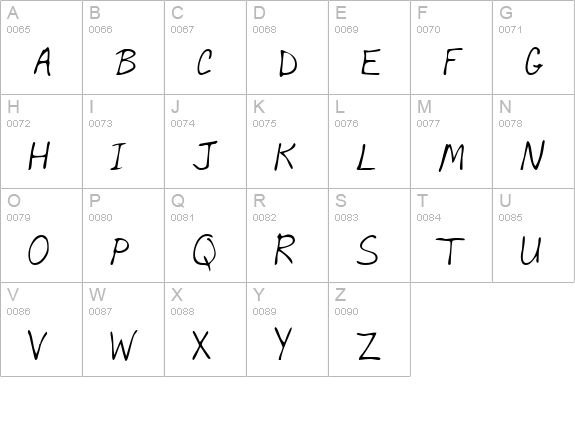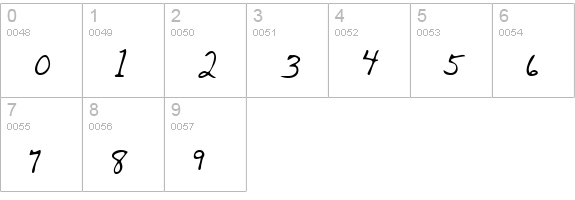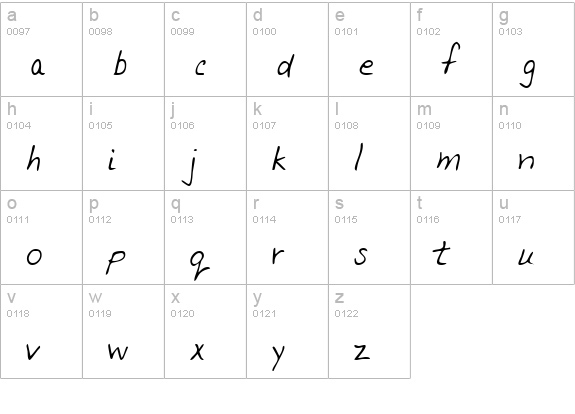
BerylsHand Regular is the standard, neutral variant in the BerylsHand typeface family \xE2\x80\x94 well suited to general body text, paragraphs, and standard typographic work.
BerylsHand Regular font is a charming and versatile handwritten typeface that exudes a sense of warmth and friendliness. Its elegant strokes and natural flow make it perfect for a wide range of design projects, from invitations and greeting cards to branding and packaging. The font's clean and legible appearance ensures that it can be easily read in both print and digital formats. And the best part? BerylsHand Regular font is available for free download at FontsMarket.com! Whether you're a seasoned designer looking to add a new tool to your collection or a beginner seeking a high-quality font without breaking the bank, BerylsHand Regular is the perfect choice. Don't miss out on this fantastic opportunity to enhance your projects with this beautiful and accessible font. Download BerylsHand Regular today and let your creativity shine!